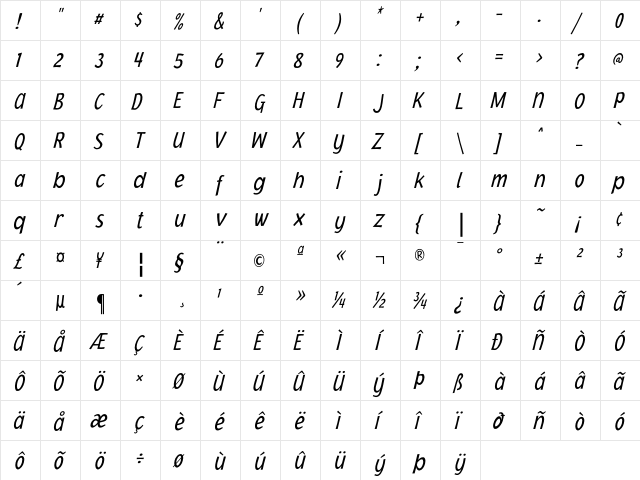
JacobyCondICG LightItalic Font Preview
Design Context for JacobyCondICG Typeface
JacobyCondICG offers clean, dependable letterforms without strong stylistic allegiance, making it a practical choice for designers who need flexibility. The slanted form adds forward momentum and visual energy. The delicate stroke weight brings airiness and refinement to layouts. The condensed width makes it efficient for tight spaces without sacrificing legibility.
Pro Tip: Try JacobyCondICG for annotation and caption copy alongside an upright companion — the contrast in angle creates a dynamic but ordered typographic system.